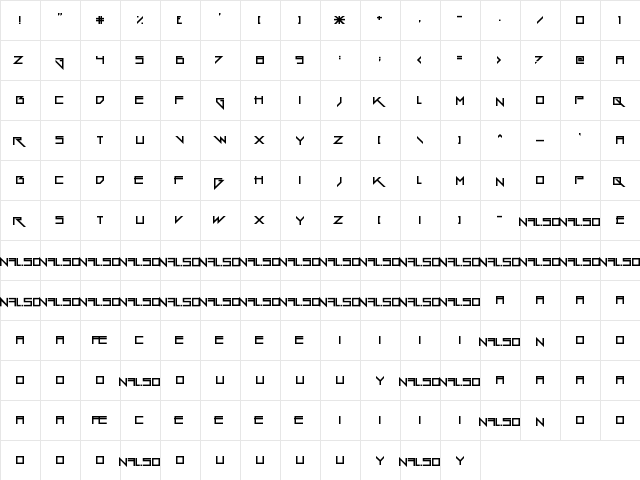
Gang Wolfik Regular
| Designer | NAL |
Design Context for Gang Wolfik Typeface
Gang Wolfik is a composed and adaptable typeface that performs quietly and consistently across a wide range of design contexts.